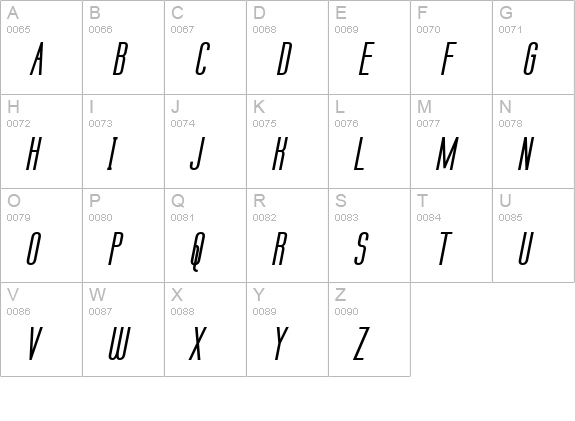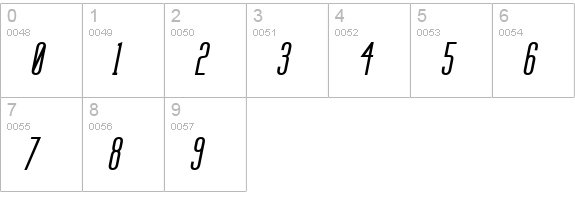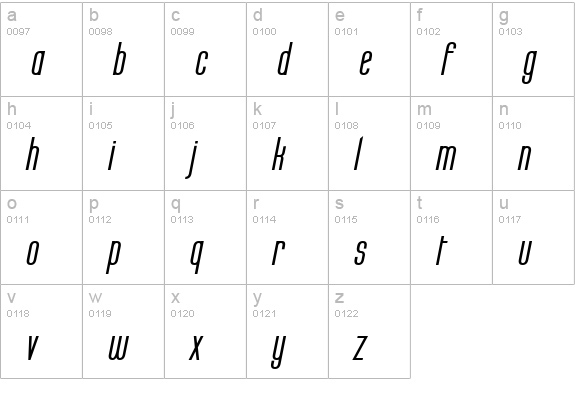
Labtop Bold Italic is a strong, high-contrast, italic variant in the Labtop typeface family \xE2\x80\x94 well suited to headlines, attention-grabbing titles, and strong calls-to-action.
Labtop Bold Italic font is a striking and modern typeface that exudes confidence and sophistication. Its bold yet elegant design makes it perfect for headlines, titles, and any design project that requires a touch of boldness. The italicized style adds a dynamic and stylish flair to any text, making it stand out and command attention. And the best part? Labtop Bold Italic font is available for free download at FontsMarket.com! Whether you're a designer looking to add a bold touch to your projects or a writer wanting to make a statement with your words, this font is a versatile and eye-catching choice. Download Labtop Bold Italic font today and elevate your designs with its bold and modern appeal.